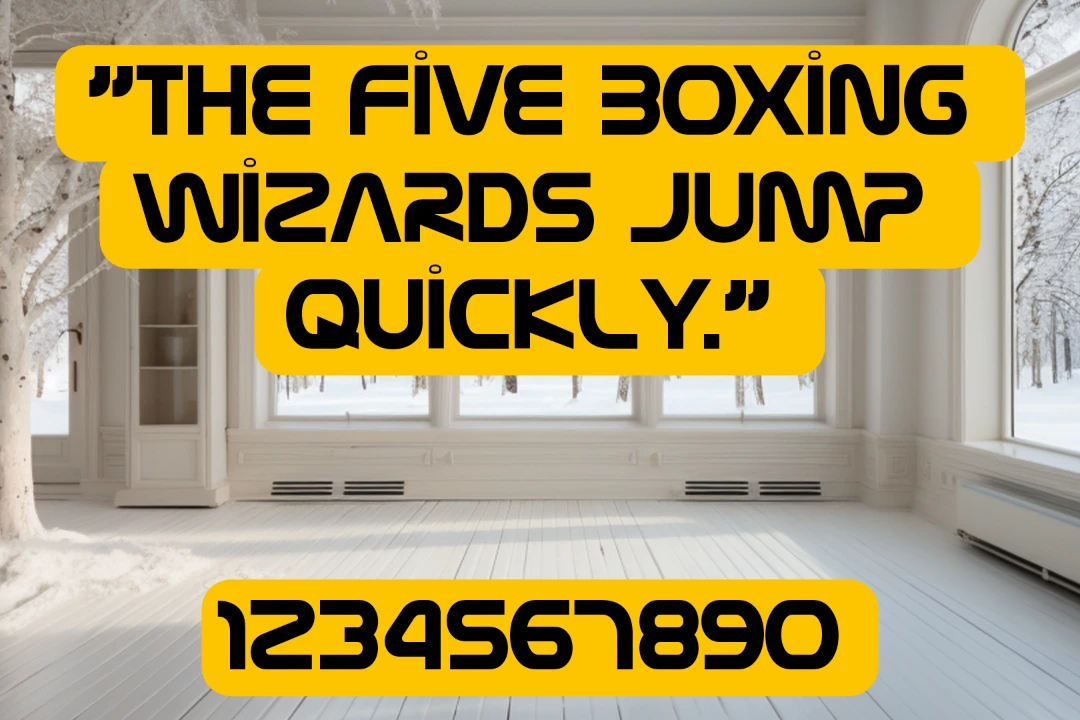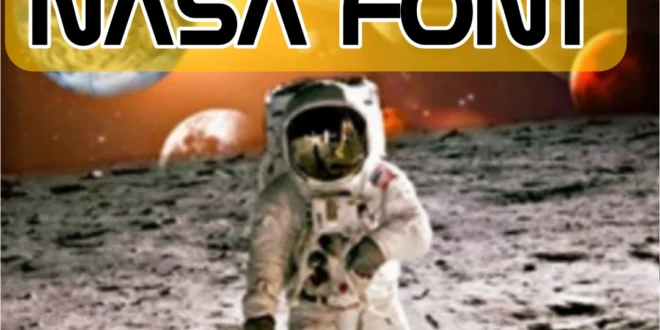
Hi everybody here we have brought for you the new logo-based typeface that is enlivened by the logo of the Renowned American Space Think-tank, specifically NASA.
This typeface accompanies normal typographic requirements. Therefore, NASA Font was inspired by NASA and was launched in 1975. It is a sans-serif typeface with a lot of features but also helps you in your assignments and projects.
This is the unmistakable and reliable typeface that helps you in making exceptionally neat body passages and this serif typeface is utilized inside Google Docs. The typeface that is utilized in the logo of this typeface is the popular sans-serif typeface specifically Helvetica Textual style.
This typeface us being utilized for a long time as the superb typeface of NASA as it fluctuates from the space transport to signage. Therefore, these are the most omnipresent typefaces that are generally utilized for enormous sizes message and passages.
Uses of NASA Font
On the contrary, this is quite possibly the most utilized typeface and the fundamental utilization of this typeface can effectively be found in the Logo of the popular space organization NASA. This accompanies intense styling.
Additionally, there are many ventures in which this typeface is generally utilized that incorporate various plans like headings and titles for magazines and paper and for various motion picture banners.
| Name | Nasa Font |
| Designer | Typodermic Fonts |
| Type | Sans-Serif |
What’s the Closest Font to Nasa?
Consequently, the Porsche Textual style is exceptionally near this textual style.